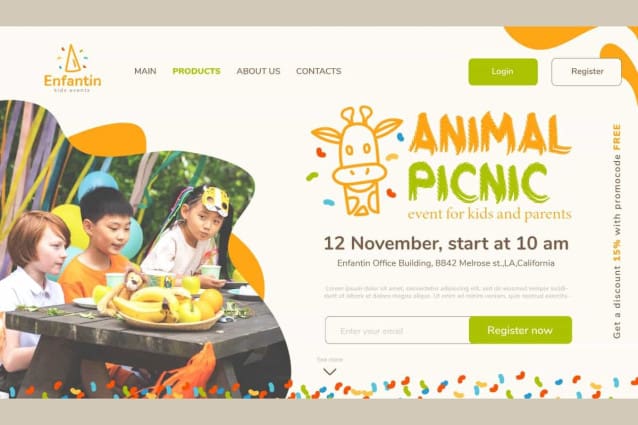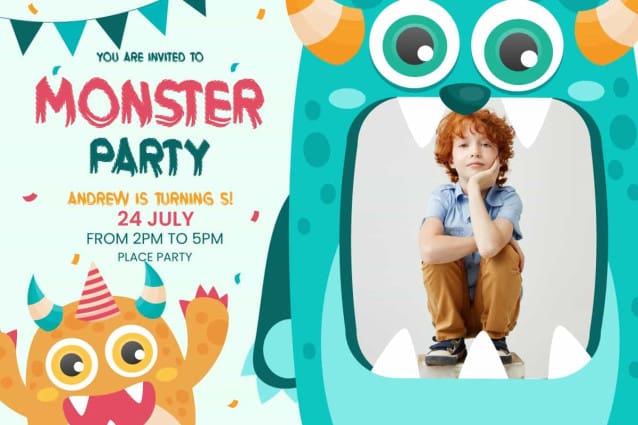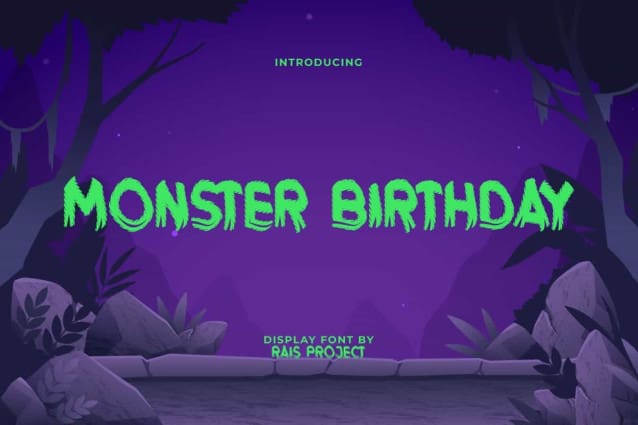
Monster Birthday Font
Monster Birthday Font is a creepy cute playful decorative font with fun gaming created by RaisProject. This font can give a spooky and adorable impression, depending on the colors you choose for the design. It would be good for your design, such as book cover, brand image, comic, invitation, menu, poster, website page, and more!
Monster Birthday Font includes a full set of ALL CAPS for Uppercase and Lowercase Letters, Numerals, and large range of Punctuation. This funny font will be suitable for various industries, such as animation, cartoon, comic, event or festival, fashion, game, kids stuff, printing, publishing, etc.